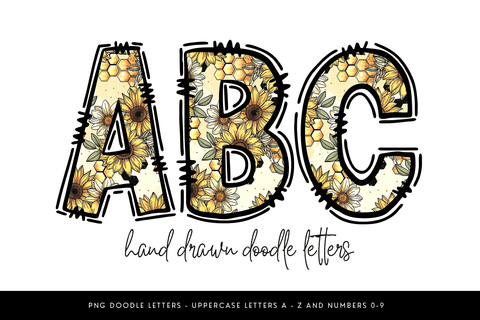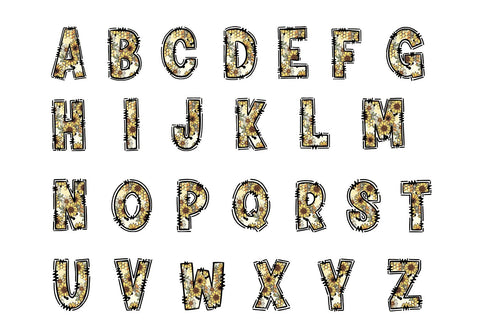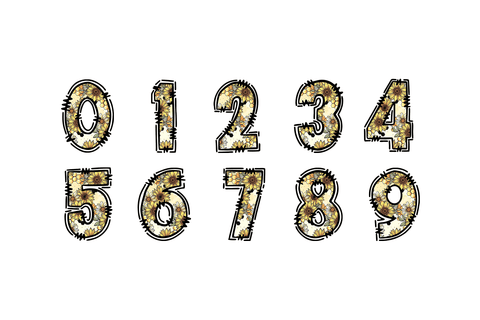
Sunflower Honeycomb Alphabet PNG
Bring a warm, rustic charm to your designs with this sunflower and honeycomb doodle alphabet set! Each letter and number is hand drawn with vibrant sunflowers and golden honeycomb details, perfect for farmhouse décor, fall projects, teacher gifts, stickers, and sublimation crafts. Delivered as high-quality PNG files, this digital alphabet includes A-Z and 0-9 so you can easily personalize tumblers, shirts, signs, and more. A versatile and unique set to add a touch of nature to your creative projects!
✦ Uppercase letters A-Z
✦ Numbers 0 - 9